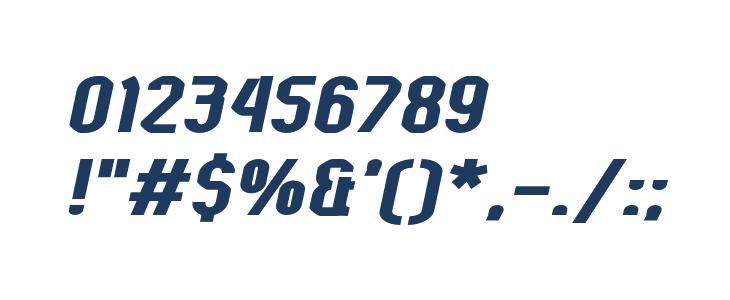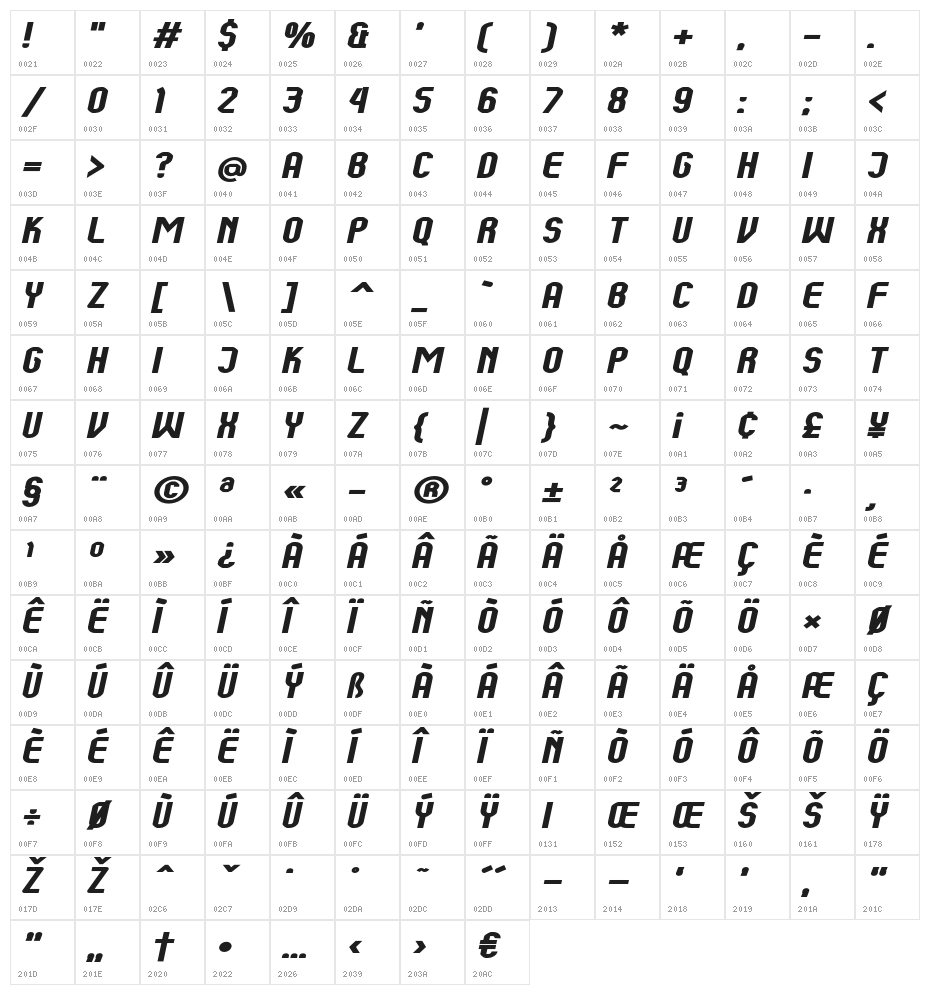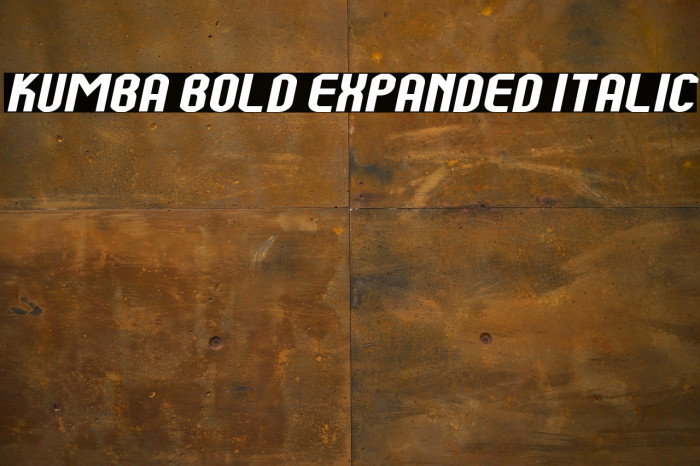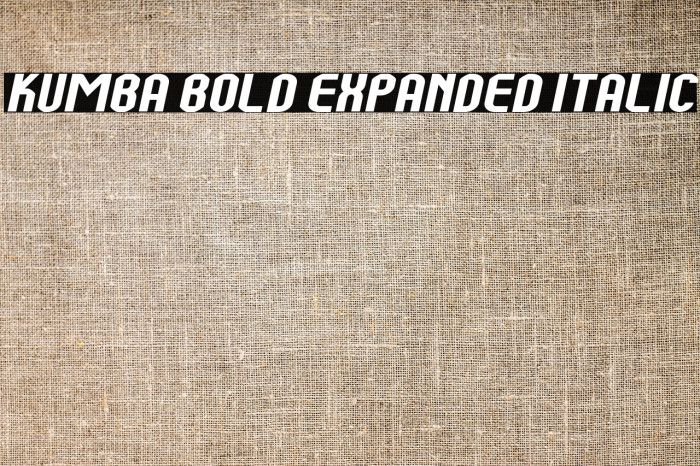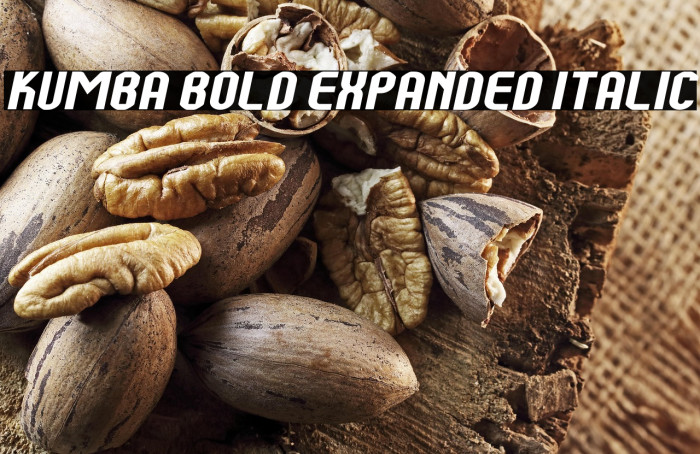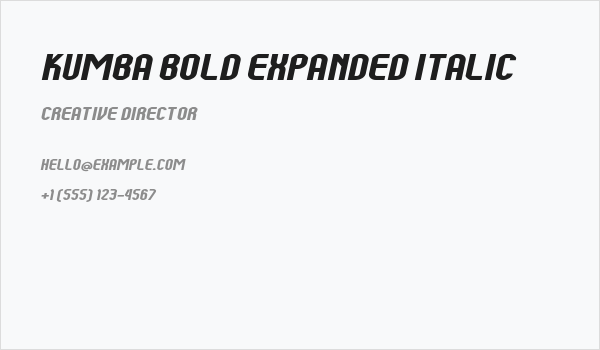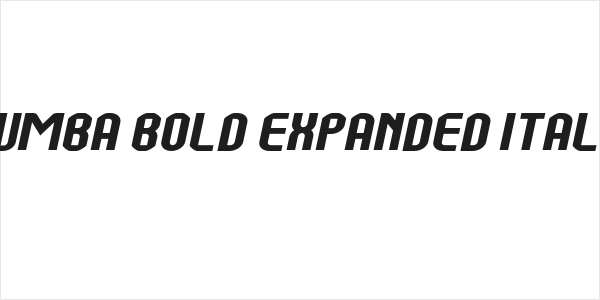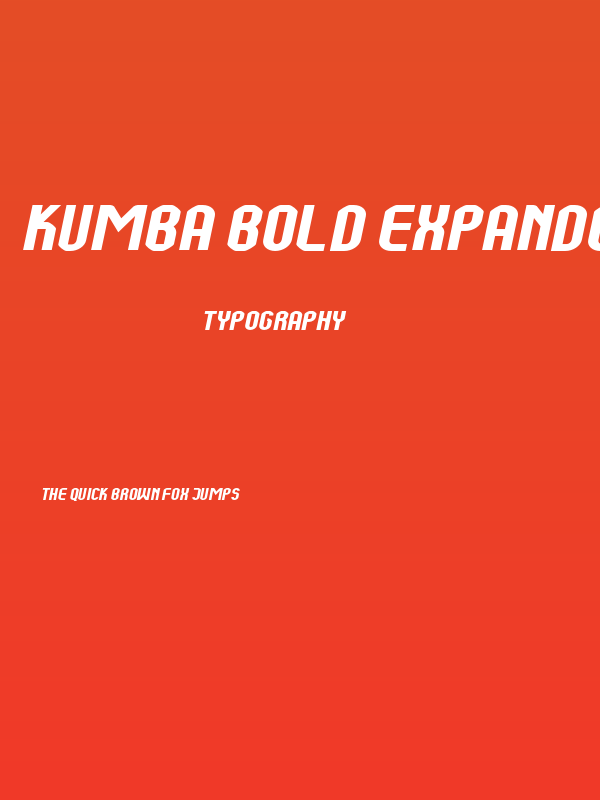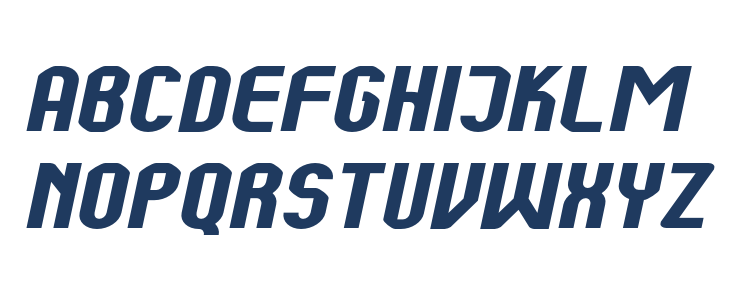
Kumba Bold Expanded Italic Font
Kumba Bold Expanded Italic Description
This font features a bold and expanded style with a noticeable italic slant, giving it a dynamic and energetic appearance. The characters are robust and impactful, with a modern flair that makes them stand out. The uppercase and lowercase letters maintain a consistent weight, providing a uniform look across the board. The numerals are equally bold, ensuring they are easily readable. Special characters are included, matching the overall bold and italicized style. This font is perfect for making a strong visual statement.